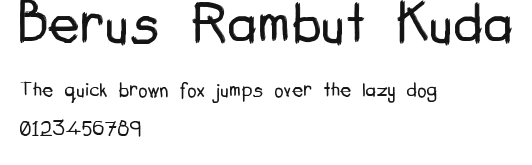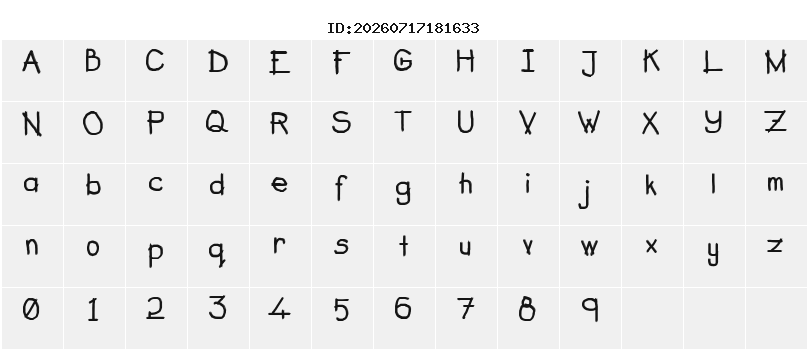
Berus Rambut Kuda Preview
• Font Name: Berus Rambut Kuda
• Full Font Name: Berus Rambut Kuda
• PostScript Name: BerusRambutKuda
• Designer: cenz qobbal
• Manufacturer: cenz qobbal
About Berus Rambut Kuda.ttf
Berus Rambut Kuda.ttf is a modern, elegant sans-serif font designed for ultimate readability and visual harmony. Perfect for branding, headlines, web design, and print materials.